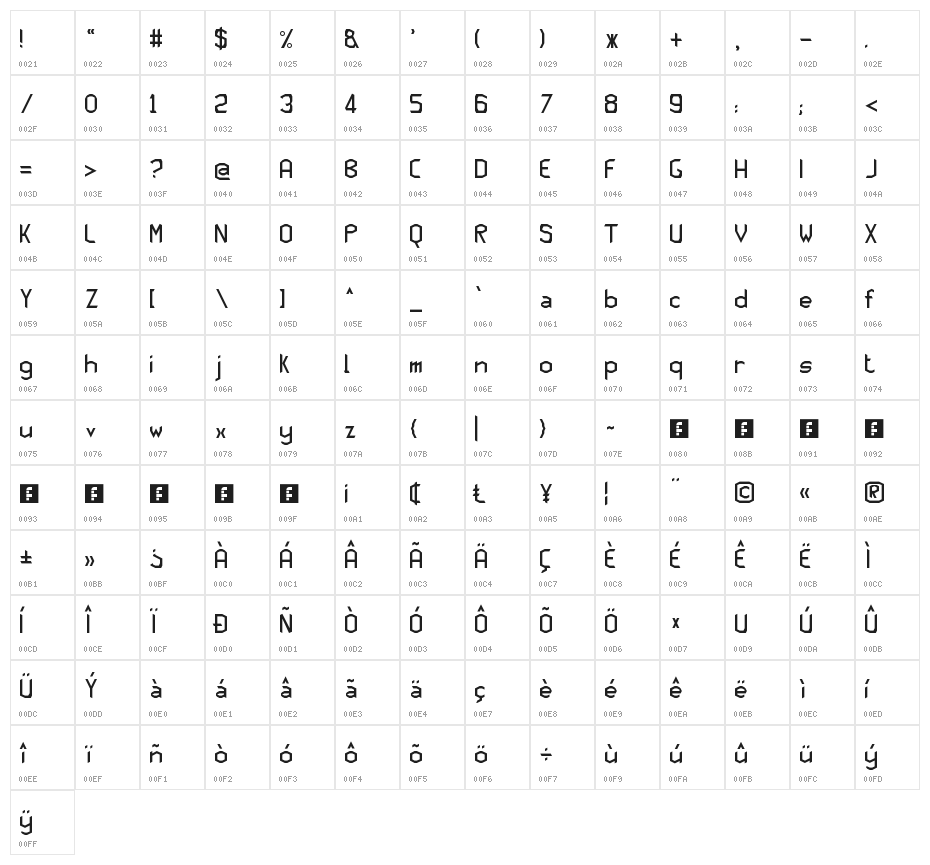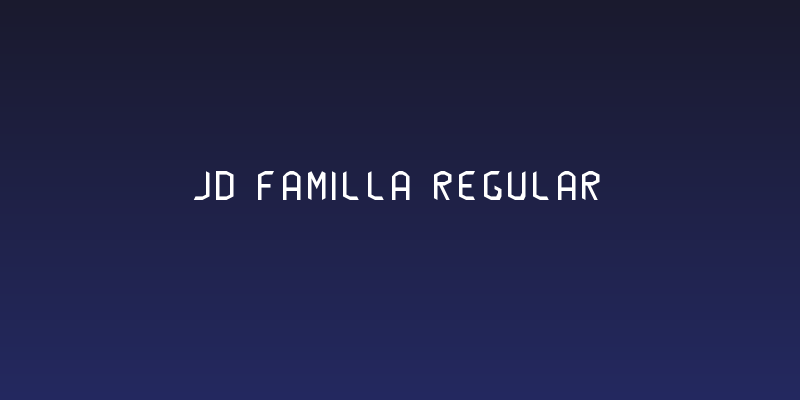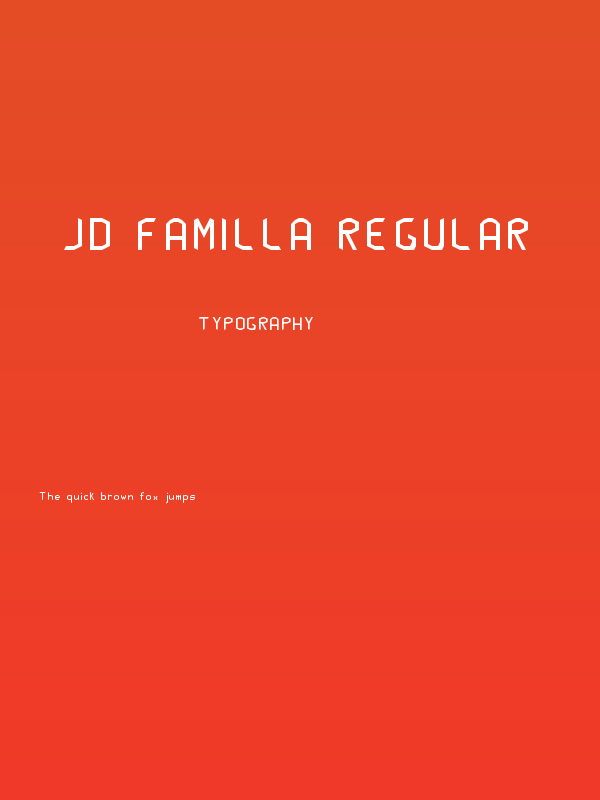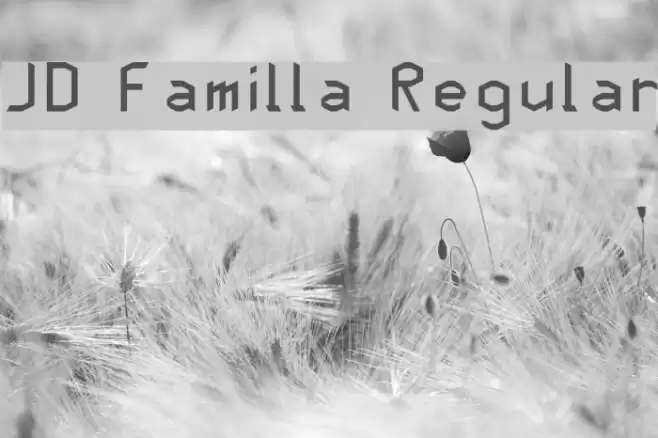
JD Familla Regular Font
JD Familla Regular Description
This font features a unique, angular design with a modern twist. The characters are constructed with sharp edges and geometric shapes, giving it a distinct and futuristic appearance. The uppercase letters are bold and commanding, while the lowercase letters maintain the same angular style, providing consistency across the typeface. Numbers and special characters follow the same design principles, ensuring uniformity. The font's overall aesthetic is both striking and versatile, making it suitable for various creative applications.
| Proposed Projects | Ideal for branding, posters, and digital media projects that require a modern and edgy look. |